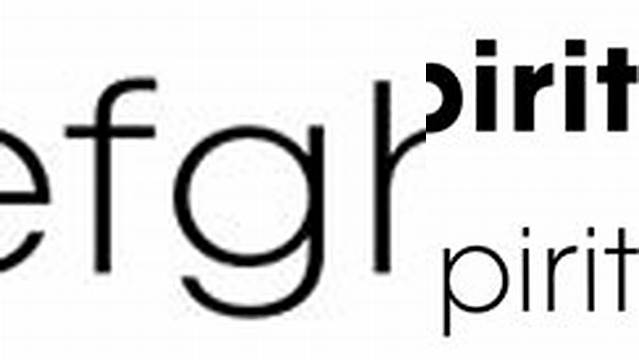
Hey everyone! Looking for a cool, versatile font that you can snag without spending a dime? You're in the right place! Today, we're diving deep into the world of the Shapirit Regular font, a fantastic typeface perfect for a whole bunch of projects. And the best part? You can get a shapirit regular font free download and start using it right away. So, buckle up, grab your favorite beverage, and let's explore everything you need to know about this awesome font. We'll cover where to download it, how to use it, and even some creative ways to make the most of it. Let's get started!
Understanding Shapirit Regular Font: A Closer Look
Now that you know how to get it, let's talk about the shapirit regular font itself. This font is known for its clean and modern look. The design has a great balance, which makes it easy to read at various sizes. Its versatility makes it suitable for a wide array of projects, from personal blogs to professional presentations. The font's design is simple yet eye-catching. This makes it easy to incorporate into a variety of designs without overwhelming the overall aesthetic. Additionally, the character set supports many different languages, which makes it a valuable asset for international projects. Its wide availability as a shapirit regular font free download is another attractive element. It provides designers and individuals alike with accessible design resources. The font’s readability is a key feature. This makes it suitable for both headings and body text. The Shapirit Regular font brings a touch of sophistication, thanks to its elegant design. This can be useful in many different situations. Its modern style aligns with current design trends. This allows it to be used in contemporary projects.
Design Elements and Features
When we delve into the specifics of the shapirit regular font, we'll find out what makes it so unique. The font generally has a consistent stroke width, which contributes to its clean appearance. The letterforms are generally well-proportioned, providing clarity and readability. This design enables designers to effectively communicate their messages. The font’s design elements allow it to be adapted to various design layouts and formats. Each character has a subtle yet distinct feel, ensuring that words stand out. The font's open counters and clear letterforms greatly increase its readability. This feature helps readability in both large and small sizes. The font usually comes with a complete character set. This allows you to use different languages and project needs. The availability of a shapirit regular font free download makes the font accessible to both experienced and beginner designers. This allows them to quickly and easily add the font to their projects. The balance between its modern and classic features makes Shapirit Regular an excellent choice for a variety of design applications.
Using Shapirit Regular Font in Your Projects
So, how can you actually use this font? The shapirit regular font is incredibly versatile, perfect for a wide range of projects. Its clean appearance makes it an excellent choice for everything. From creating appealing blog posts to designing professional business presentations. For personal blogs, this font can be used for headings, subheadings, and body text. Its readability ensures that your content is easy to understand. In graphic design, the shapirit regular font free download can be used for logos, posters, and promotional materials. The font’s modern style makes it an excellent choice for branding projects, giving a sophisticated yet contemporary look. For presentations, it provides a great balance of style and functionality. It enhances the visual appeal without taking away from the message. This font is an excellent choice. The clean and elegant style is an advantage. Additionally, it provides consistency in layout and design. Also, remember to consider the layout and design aspects that will maximize its impact. Using the shapirit regular font allows you to create projects that are visually attractive, professional, and easy to read. With these tips in mind, you can utilize your shapirit regular font free download to give your projects a stylish and professional appearance.
Tips for Effective Font Usage
Want to make the most of your shapirit regular font? Here are a few tips. First off, keep it simple. Do not overuse the font in a single design. Limit it to a few key areas to avoid visual clutter. Pair it with a complementary font for headings or body text. Ensure that your chosen fonts work well together. Experiment with different sizes and weights to see what looks best. Try bold or italics to add emphasis where necessary. Always prioritize readability, making sure the text is easily readable at various sizes. Test the font in different contexts, such as print and digital formats, to ensure it looks good everywhere. These tips can help make a significant difference in design.
Shapirit Regular vs. Other Fonts: A Comparison
How does the shapirit regular font stack up against other popular fonts? Let’s take a look. Compared to fonts like Arial or Helvetica, Shapirit Regular often offers a more distinctive personality and a slightly more modern appearance. The readability is similar, but Shapirit Regular's design can make your text stand out. When comparing it to more decorative fonts, such as script fonts, it offers a cleaner and more straightforward aesthetic. This makes it ideal for projects where clarity is paramount. Shapirit Regular usually is better suited for body text, titles, and headlines. Compared to fonts, Shapirit Regular is often easier to read. Plus, it still offers an elegant and sophisticated design. Ultimately, the best font depends on the project. The versatility and clarity of the shapirit regular font free download make it a fantastic choice for various design applications. The comparison should help you assess which font is the most suitable for your project.
Advantages of Shapirit Regular
What makes Shapirit Regular stand out from other fonts? Its clean design is a great advantage. It creates a simple look that is both modern and professional. The font's versatility lets you use it for a variety of projects. Its readability at different sizes is another great advantage. Another significant advantage is the ease of obtaining a shapirit regular font free download. This accessibility makes it ideal for both beginners and experienced designers. It also includes great features. The consistent stroke widths, well-proportioned characters, and complete character set contribute to its professional look. It has a modern feel while maintaining timeless appeal, so it will not go out of style. The advantages of Shapirit Regular make it a go-to choice for various design purposes.
Creative Project Ideas with Shapirit Regular Font
Ready to unleash your creativity? The shapirit regular font is perfect for a bunch of different projects. Consider using it for your personal website. The font’s clean design gives your site a modern and professional look. Use it to design your business cards. The elegance of the font will leave a lasting impression on potential clients. The font also works well with social media graphics. Make sure your content is eye-catching and engaging. The shapirit regular font is also suitable for designing posters. These are suitable for events or promotions, conveying information in an aesthetically pleasing way. Try creating digital presentations. The font’s readability will make your message clear and easy to understand. Also, you could use the shapirit regular font free download to make custom invitations. This will make your invitation more personal and unique. Get creative and experiment with different combinations. These ideas can inspire you to use the font in a creative way.
Potential Developments and Updates
What potential developments could we see for the shapirit regular font? There is a possibility for new updates. We could see a variety of changes to improve the font. We could see the design of the font updated. Whatever the future, it is bound to be bright. Future updates will help improve its appeal. You can expect it to continue to be used.